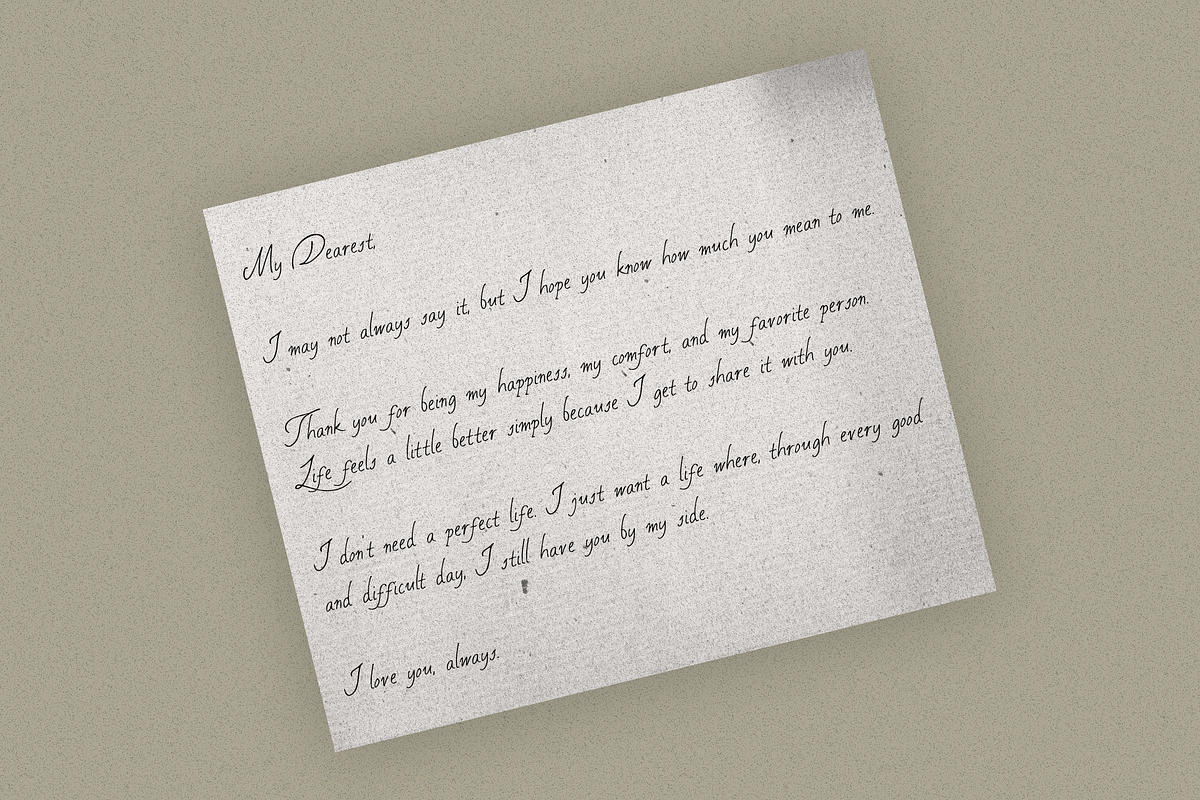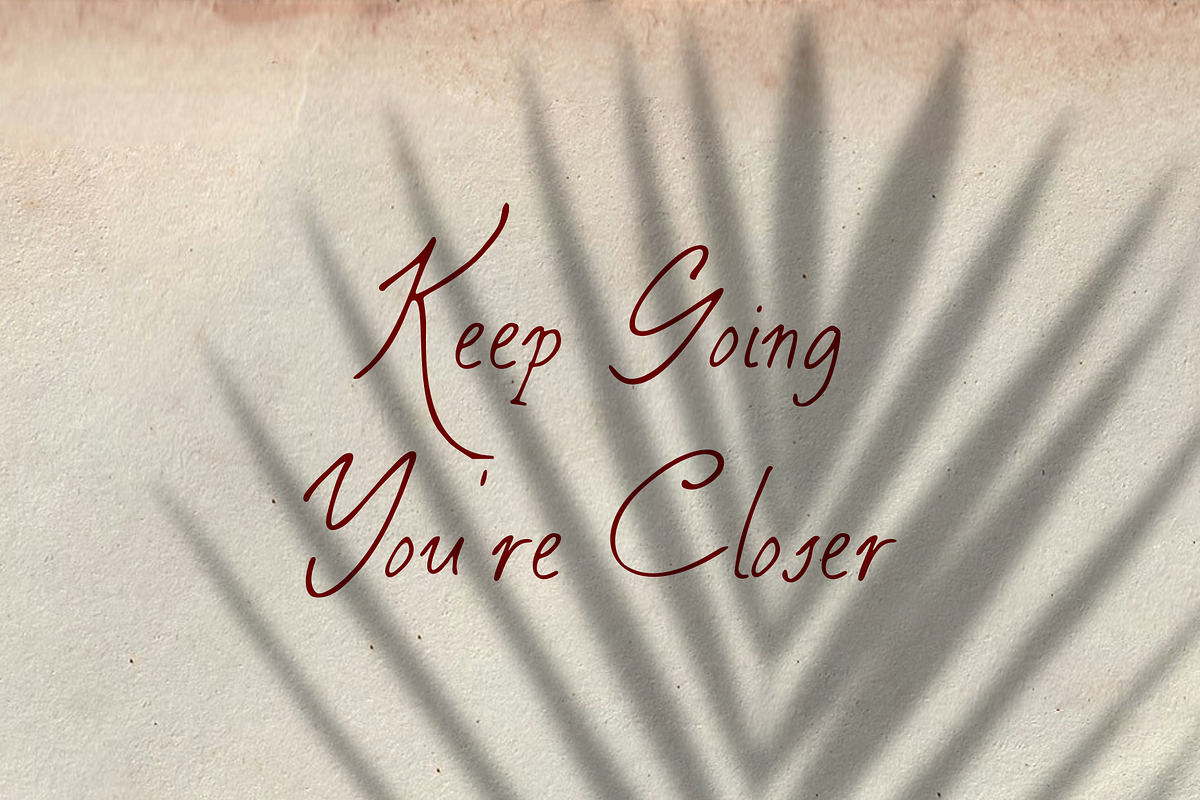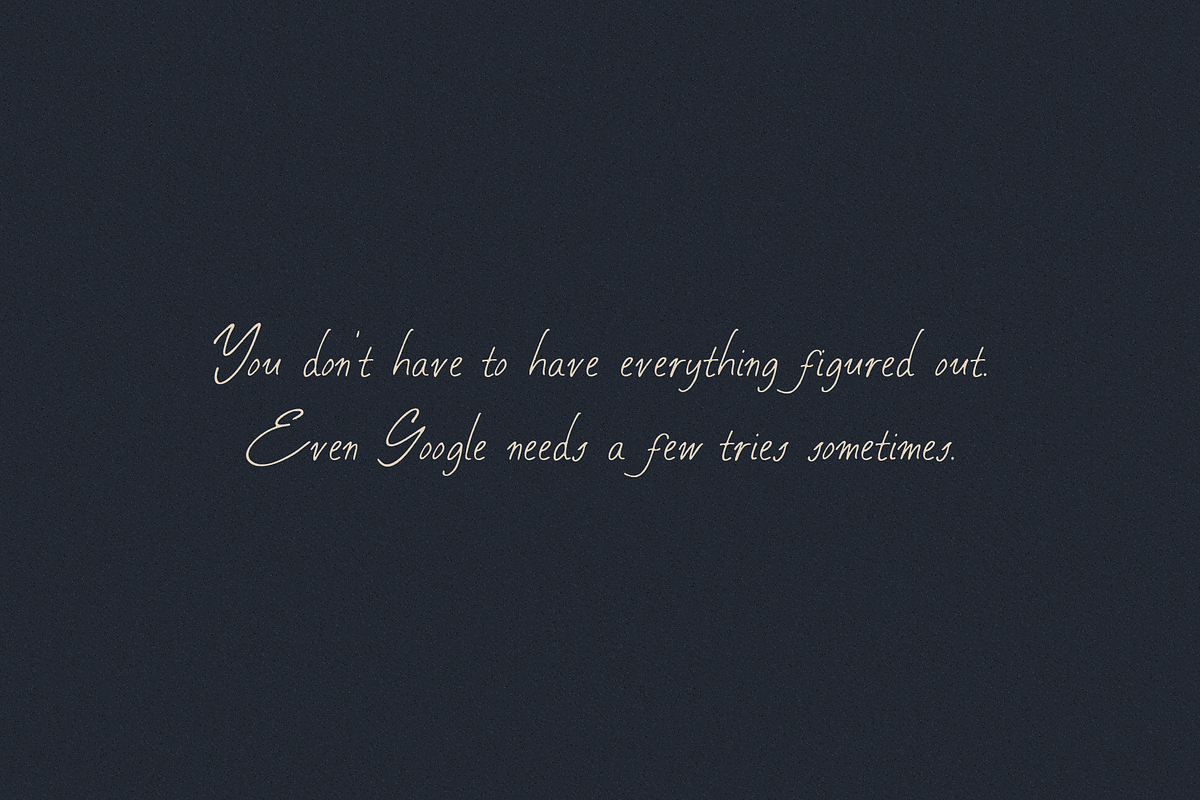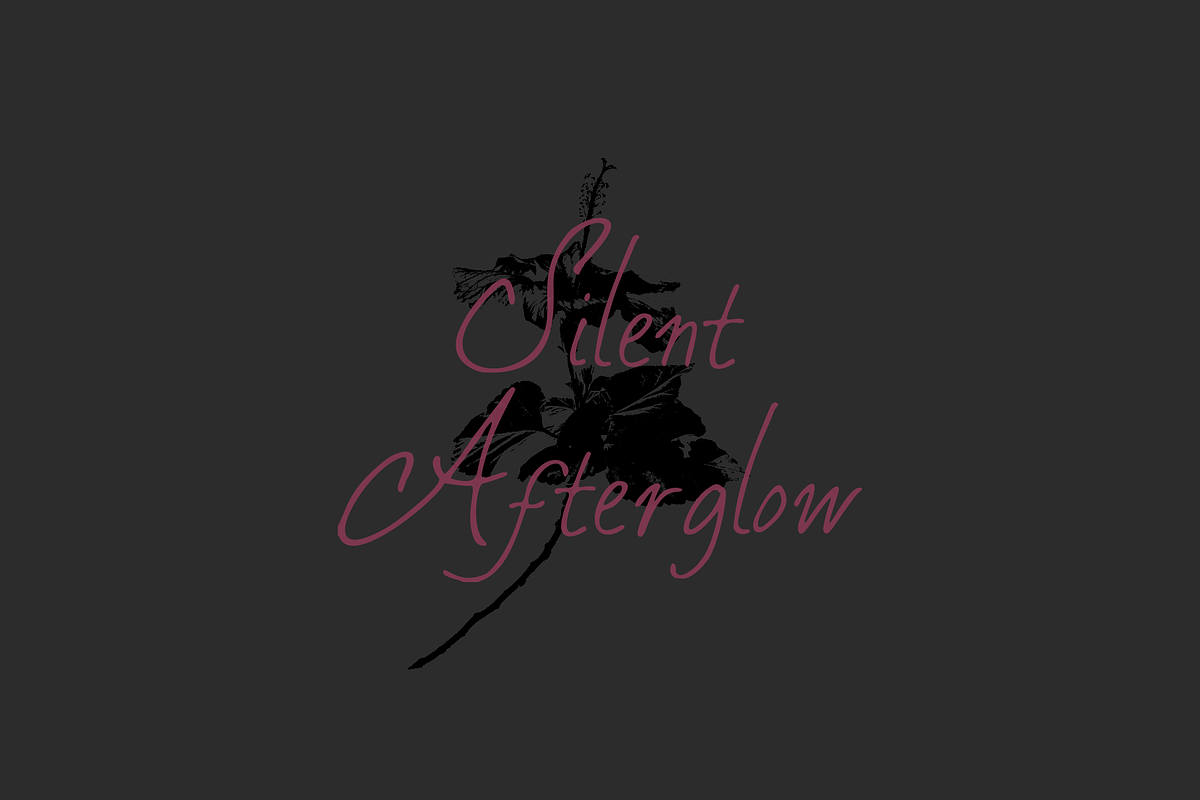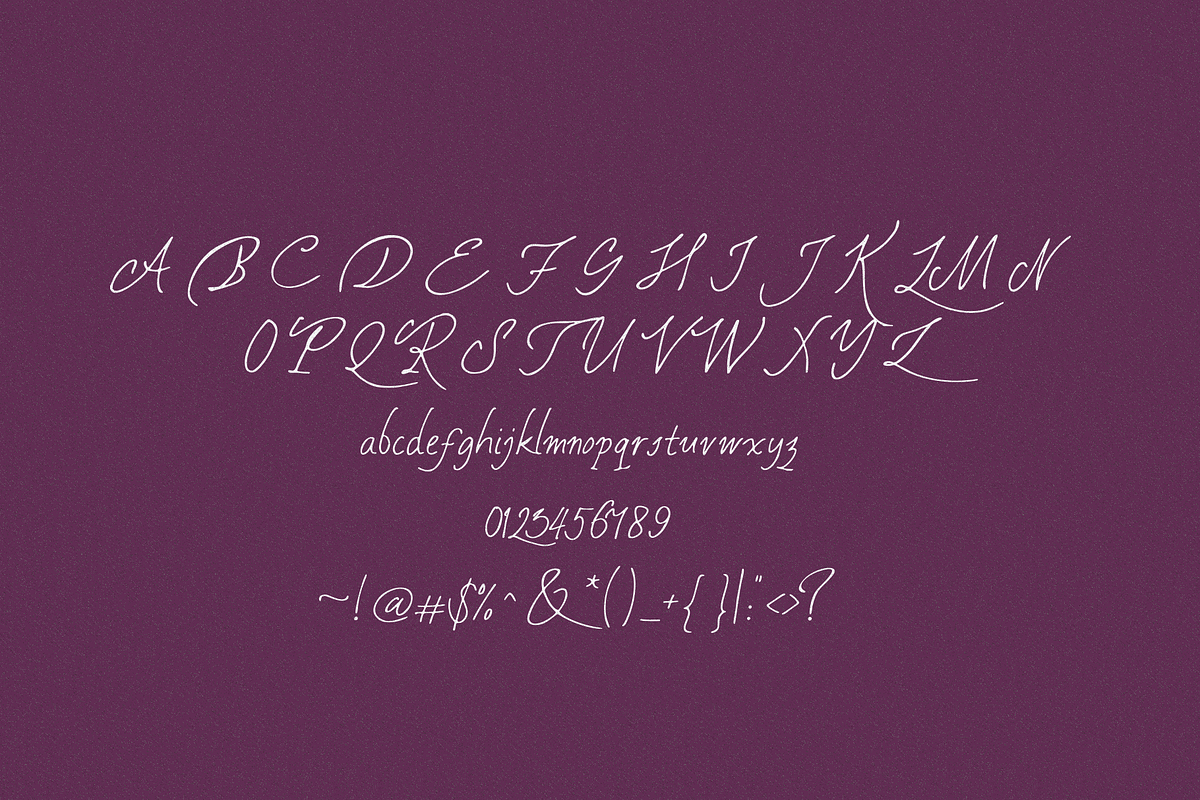
Silent Afterglow
Silent Afterglow is an elegant, hand-drawn script font featuring delicate monoline strokes and sweeping swashes that capture the quiet romance of twilight. Designed to bring an effortless touch of organic luxury to high-end branding, wedding invitations, aesthetic social media graphics, and editorial packaging, this versatile typeface includes a complete set of uppercase and lowercase letters, numbers, and essential punctuation.